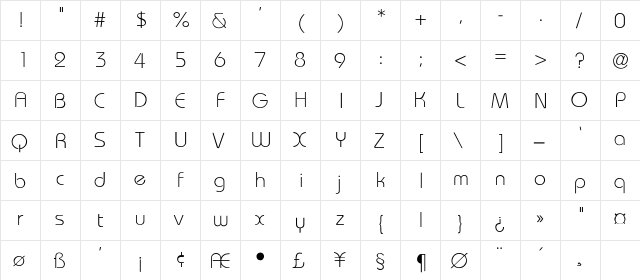
Steff Light Regular
Design Context for Steff Light Typeface
Steff Light is a composed and adaptable typeface that performs quietly and consistently across a wide range of design contexts. Its slender proportions lend an understated elegance to any composition.